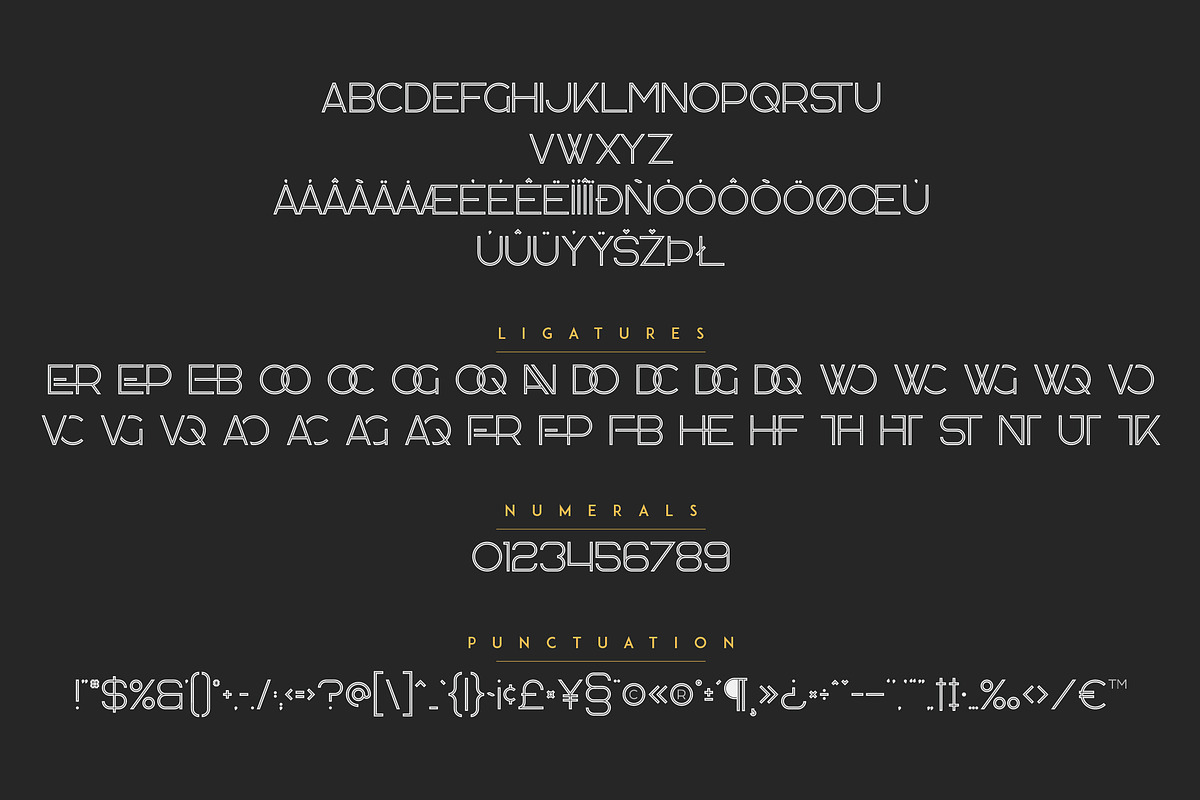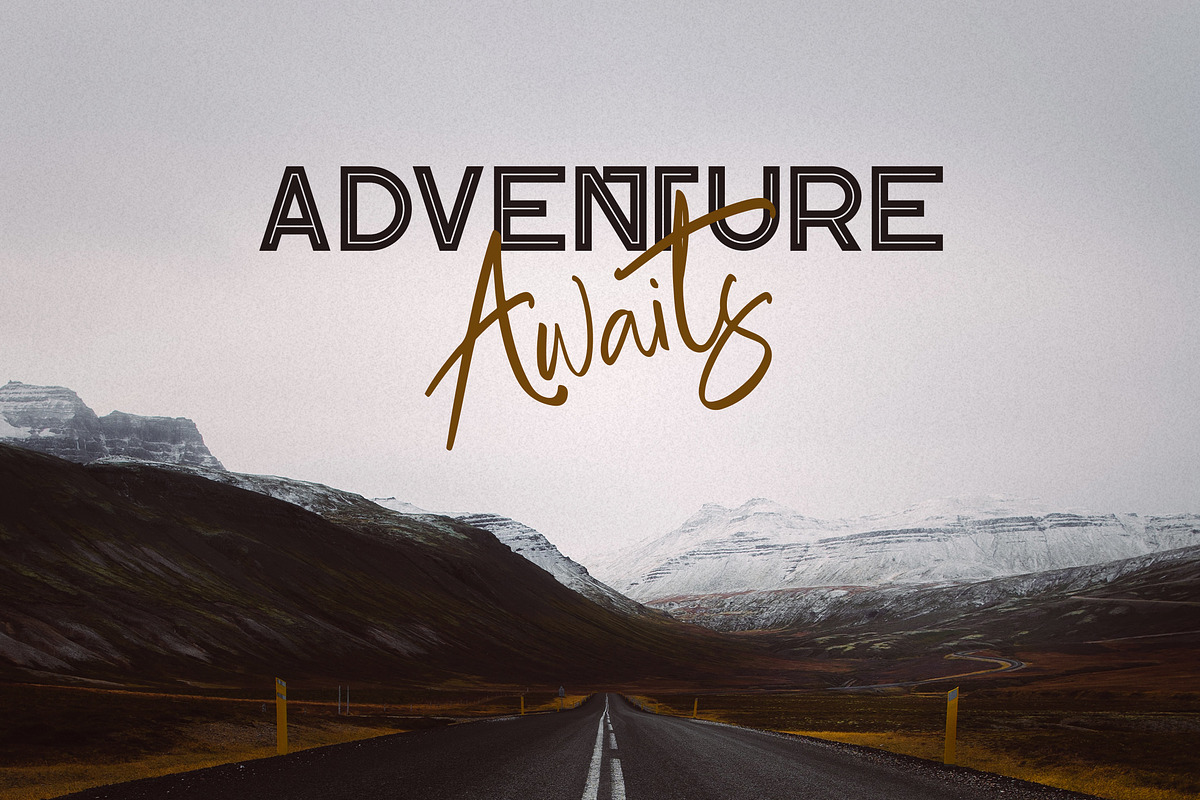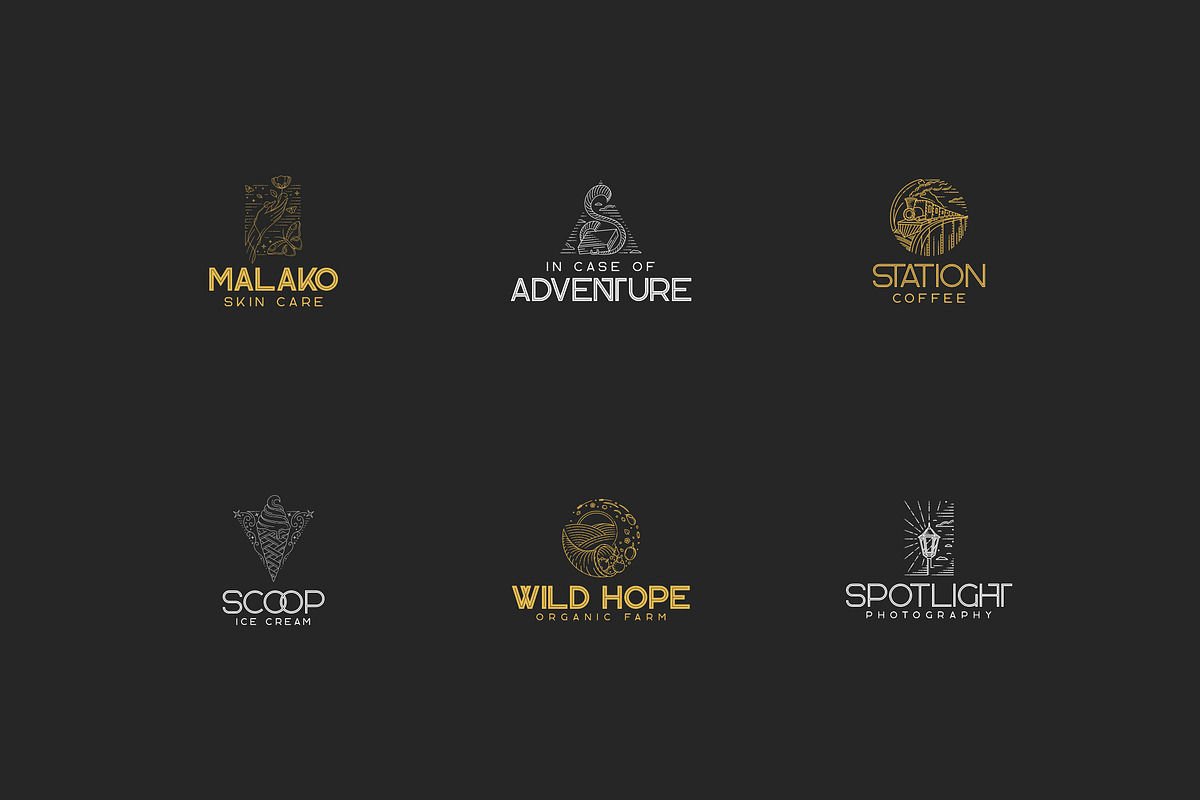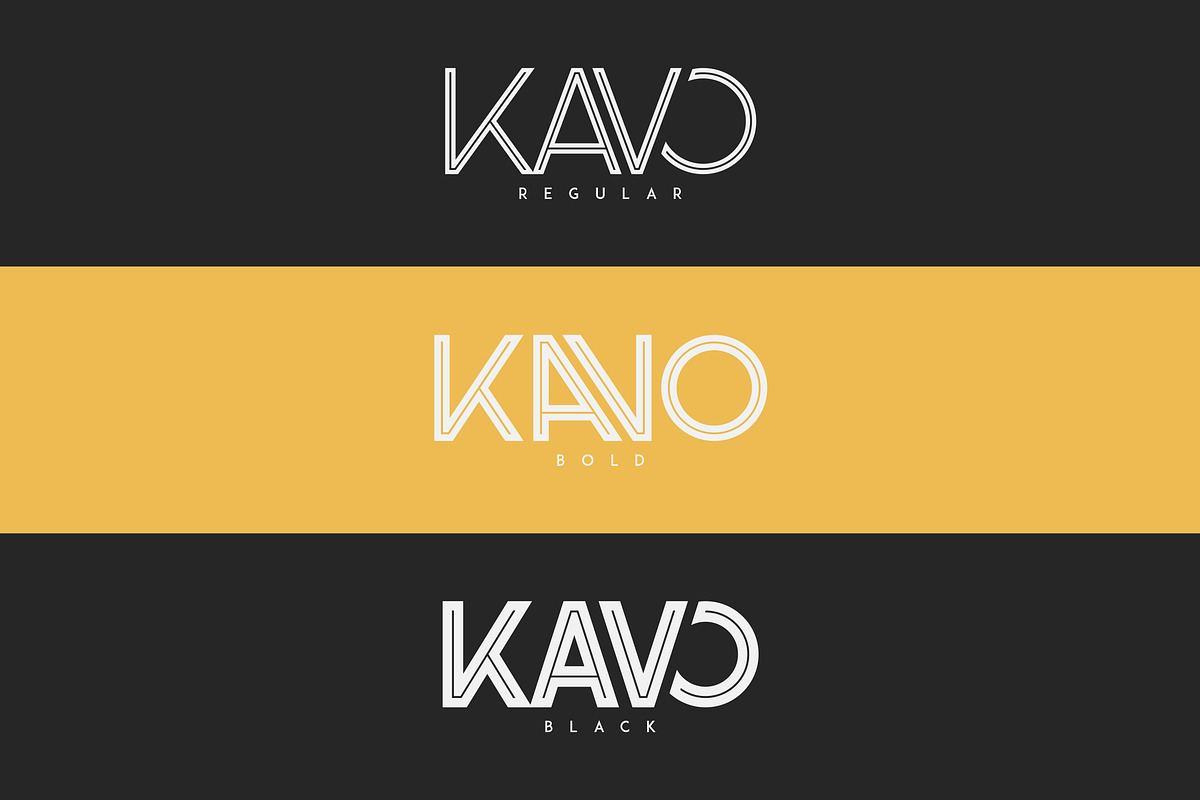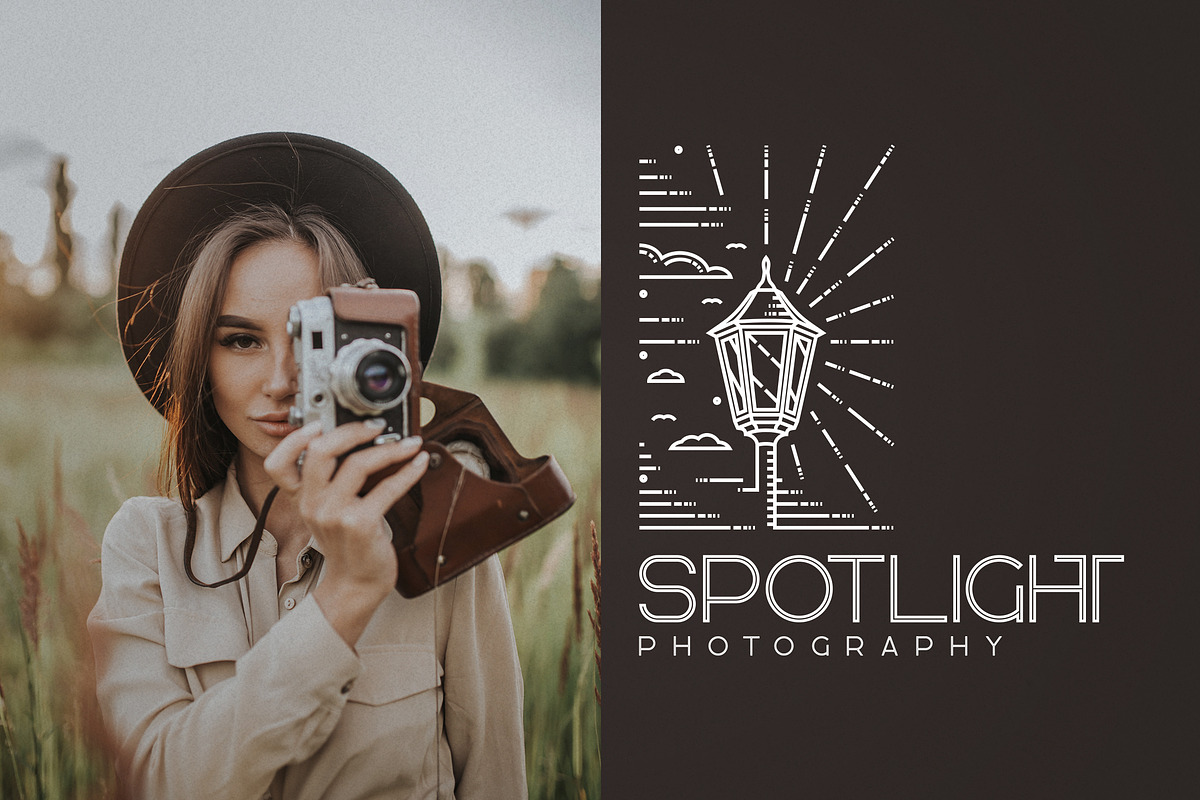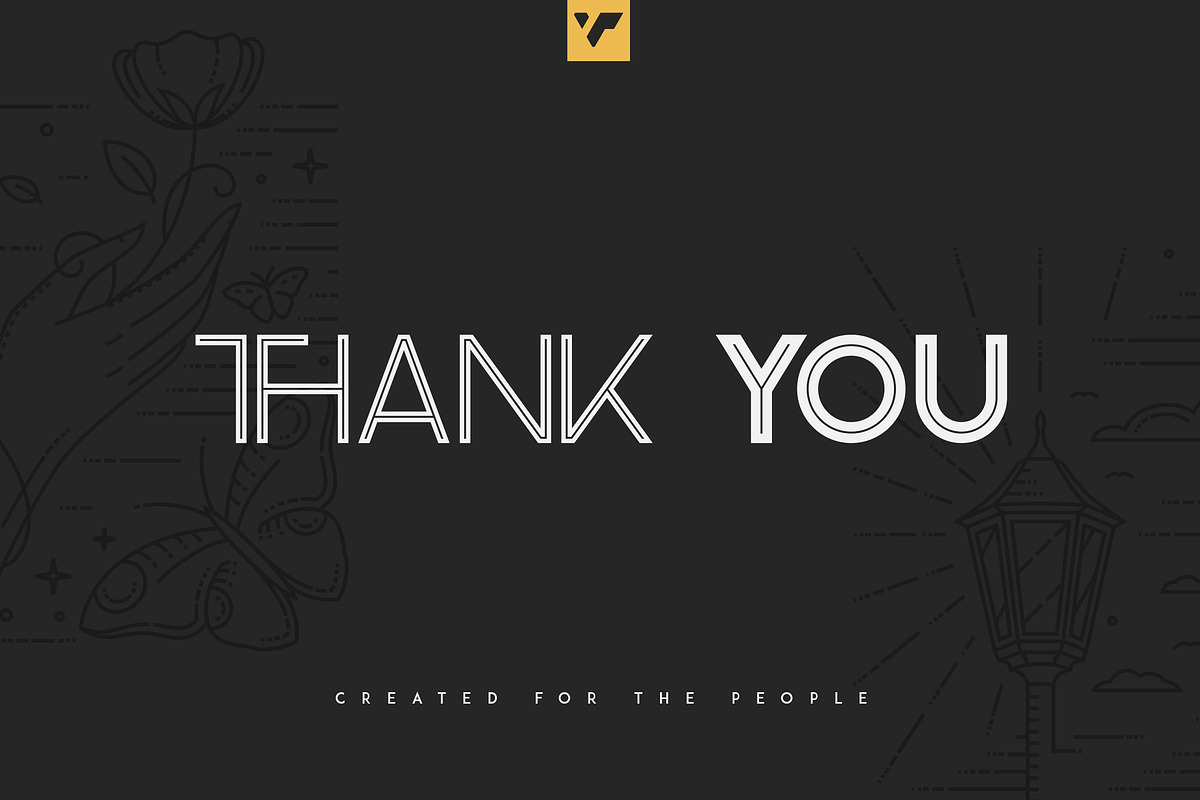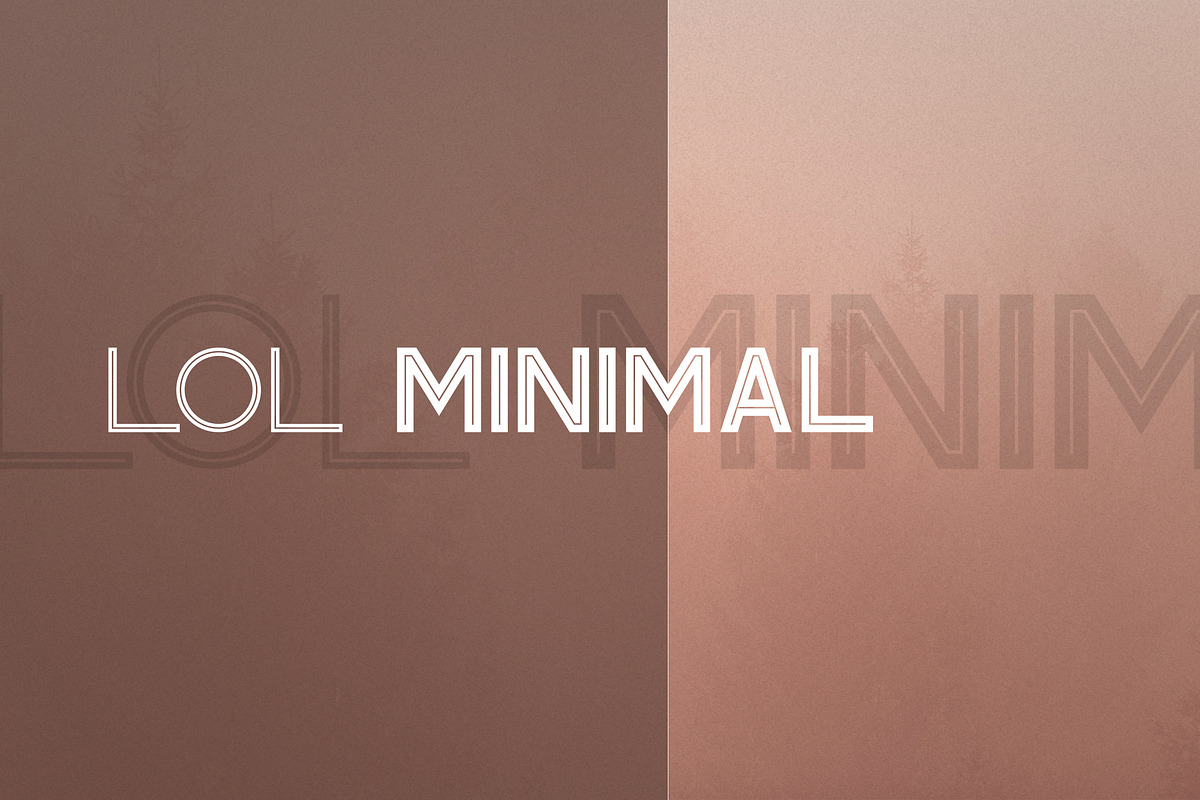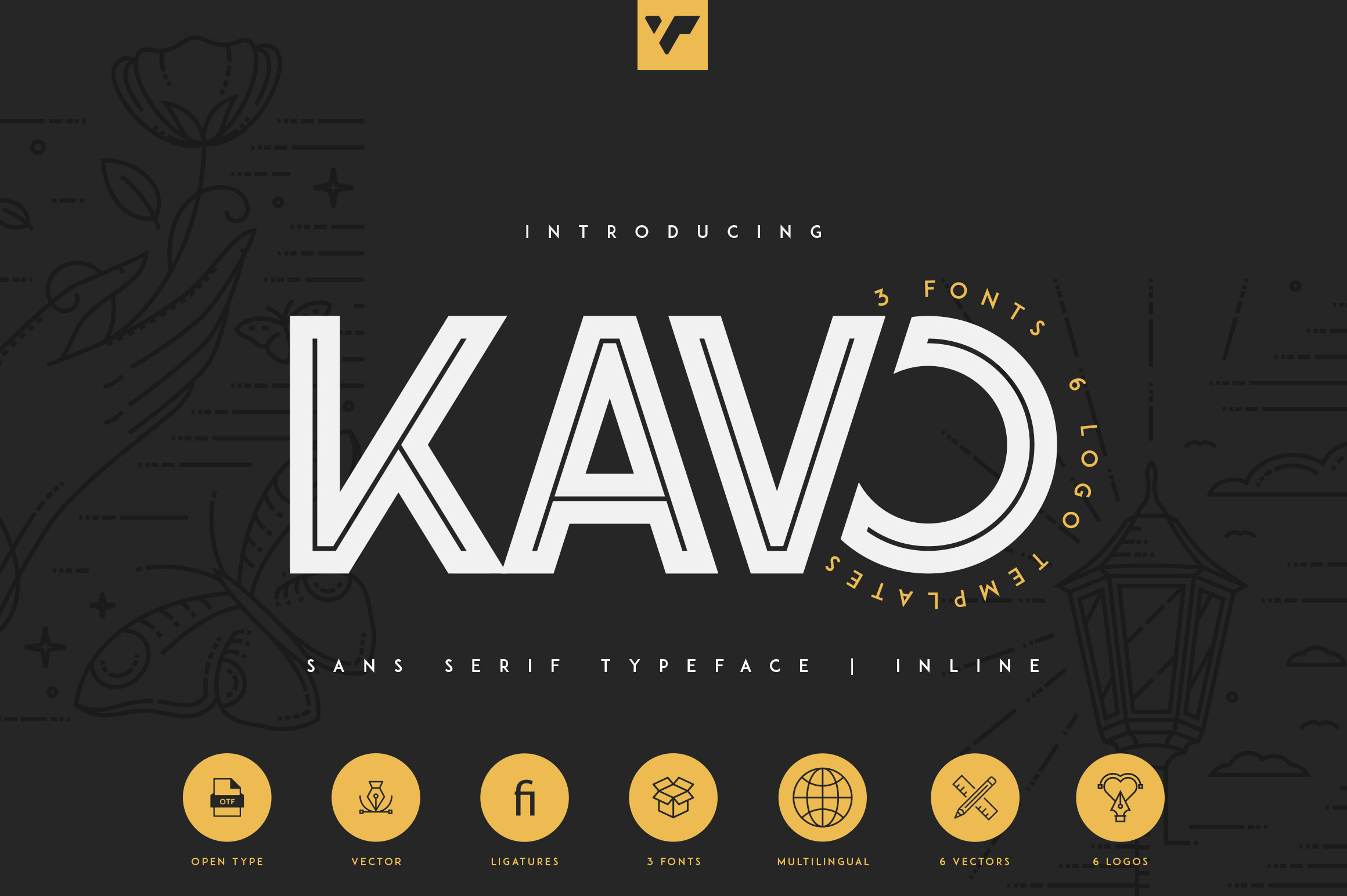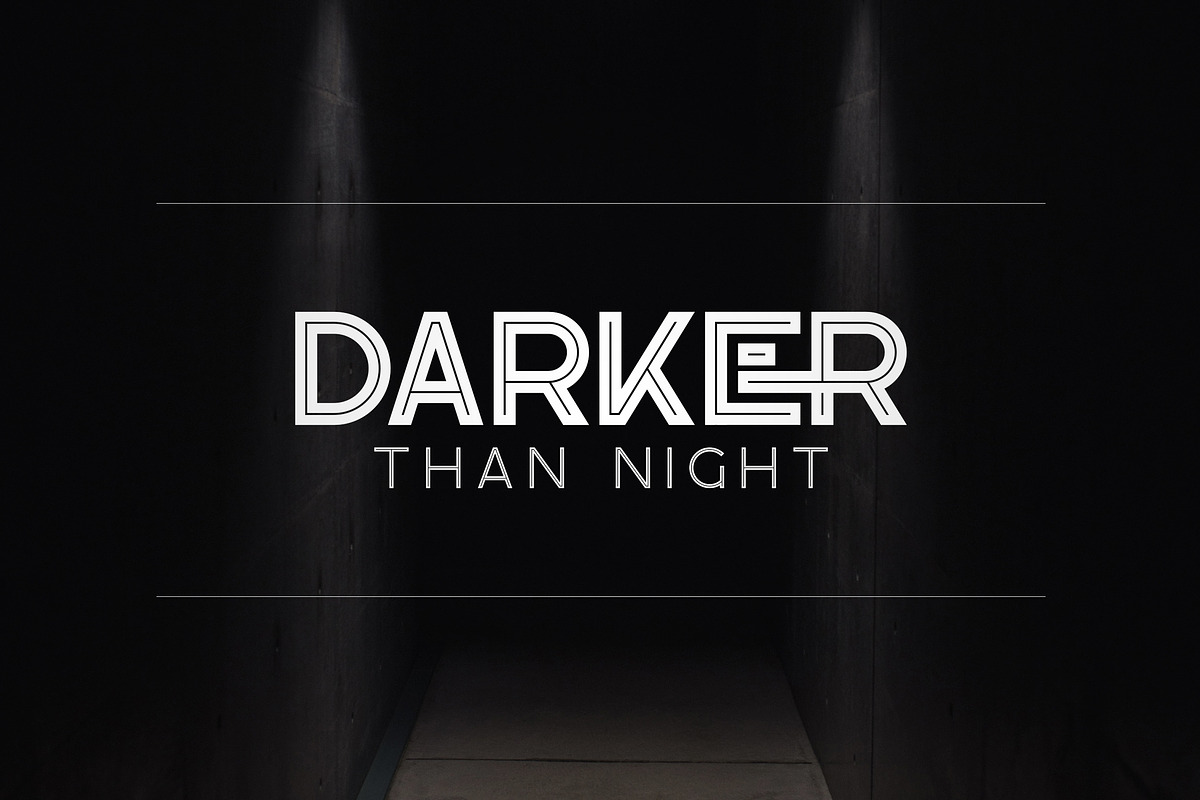
Kavo Inline | 3 fonts + 6 Logos
Introducing Kavo Inline Typeface - 3 weight + 6 Logo Templates
Kavo is modern, inline typeface with 3 weight, ligatures, 6 awesome vector designs, 6 logo templates and multilingual support. It's a very versatile font that works great in large and small sizes.
Kavo is perfect for branding projects, home-ware designs, product packaging, magazine headers - or simply as a stylish text overlay to any background image.
- Uppercase, numeral, punctuation & Symbol
- Bold
- Black